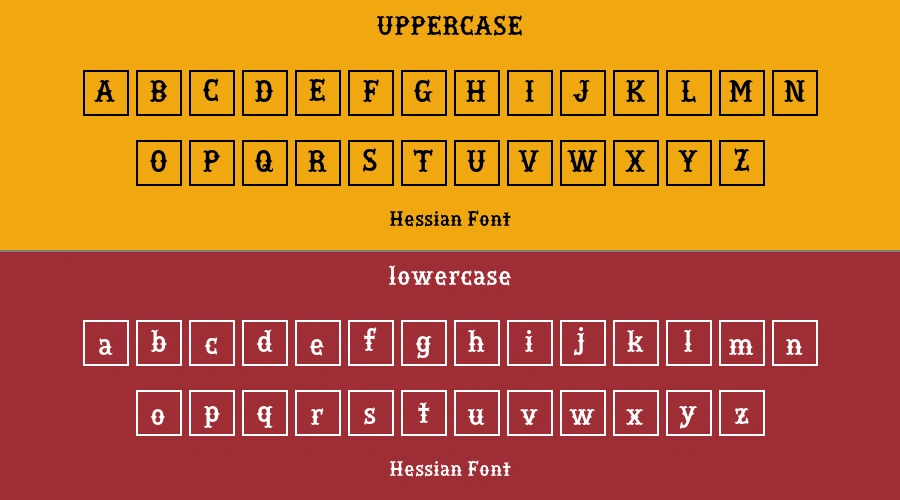
About Hessian Font
Hessian Font represents a sophisticated approach to type design, balancing assertive angles with professional standards. Perfect for architectural plans, this font family showcases impressive versatility and market relevance throughout its character set. Designers appreciate its versatility and reliability.
Designers will appreciate nuanced touches including perfect spacing and expert sets, adding sophistication to any project. These features become apparent in digital banners, where archive stability matters most. The careful treatment of x-height and subtle details ensures optimal performance.